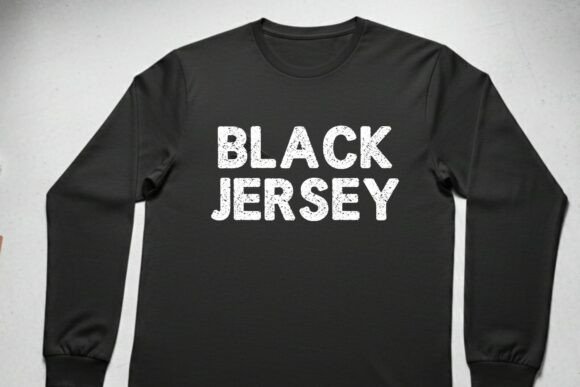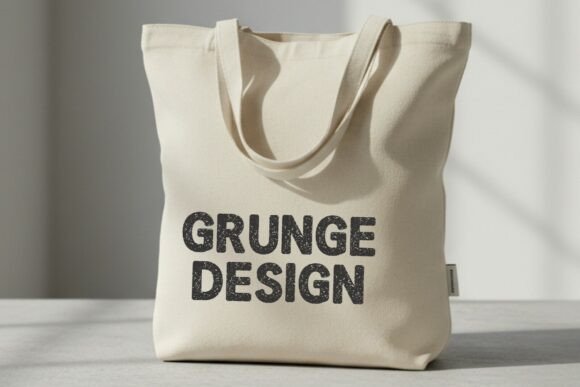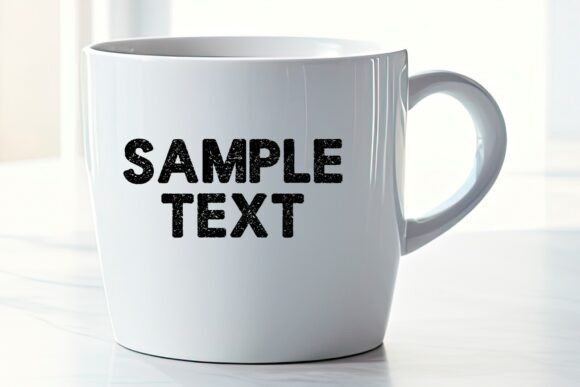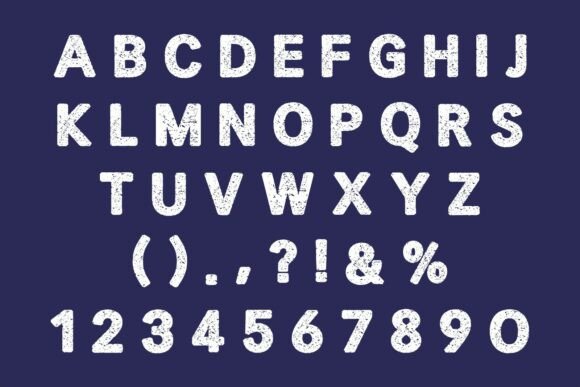
The Perfect Distressed Display Font for Your Next Design Project
As designers, we’ve all been there – staring at a blank page, struggling to find the perfect font to bring our idea to life. And then, like a ray of creative sunshine, it hits us: the Black Vintage Font. Its rugged texture and bold character immediately transport us to a world of distressed letterpress and vintage woodblocks.
This masterfully crafted font is not just a choice for designers; it’s a statement piece. With its dense, bold weight and significant texture loss, the Black Vintage Font is the ultimate go-to for horror movie titles, antique-themed branding, and edgy streetwear designs that need a touch of decay or “found” art. Its high level of detail makes it a decorative element in itself, requiring minimal ornamentation to feel complete.
Black Vintage Font Key Features
- Font Family: Black Vintage Font is a unique, distressed font designed to resemble old, worn-out letters.
- Unique Characteristics: The Black Vintage Font features a distressed, worn-out look with visible scratches, tears, and other imperfections, giving it a nostalgic and vintage feel.
Black Vintage Font Review
I recently had the chance to work with the Black Vintage Font, and I must say it’s a unique addition to any design project. Here are my thoughts:
- Distressed texture adds a nice vintage feel to any design.
- Multiple font weights and styles give designers plenty of options for customization.
- Elegant and sophisticated, perfect for luxury or high-end branding.
- May not be suitable for body text due to its decorative nature.
- Some characters may be missing or difficult to read in certain contexts.
- Not as versatile as some other fonts, may not work well in modern or minimalist designs.
Overall, the Black Vintage Font is a great choice for designers looking to add a touch of sophistication and elegance to their projects. While it may have some limitations, it’s definitely worth considering for the right type of design.
To get the most out of Black Vintage Font, use it for:
1. Creating a vintage or distressed look.
2. Adding a touch of elegance to invitations or announcements.
3. Creating a unique and eye-catching title or heading.
Remember to pair Black Vintage Font with other complementary fonts to achieve the desired effect.